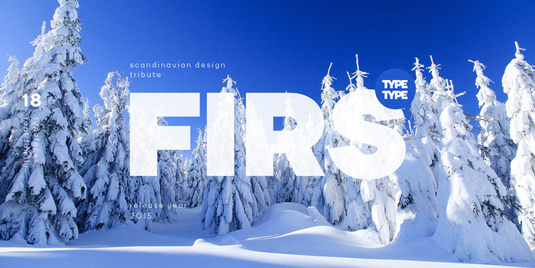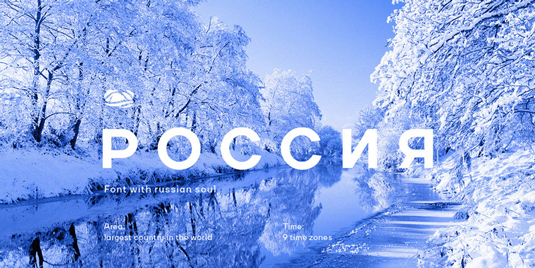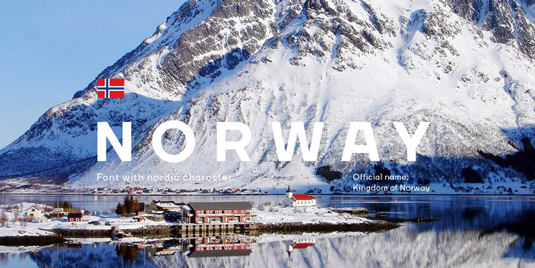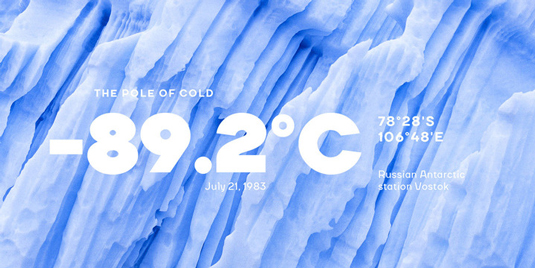
Font of the day: Firs
Every day we showcase the best fonts on the web. Today it's Firs by Ivan Gladkikh.
Firs by Ivan Gladkikh
Today's typeface of choice is sans-serif Firs, by designer Ivan Gladkikh. Designed with a modern Scandinavian style, Firs has a Nordic character and 18 weights, including hairline, thin, light, regular and bold.